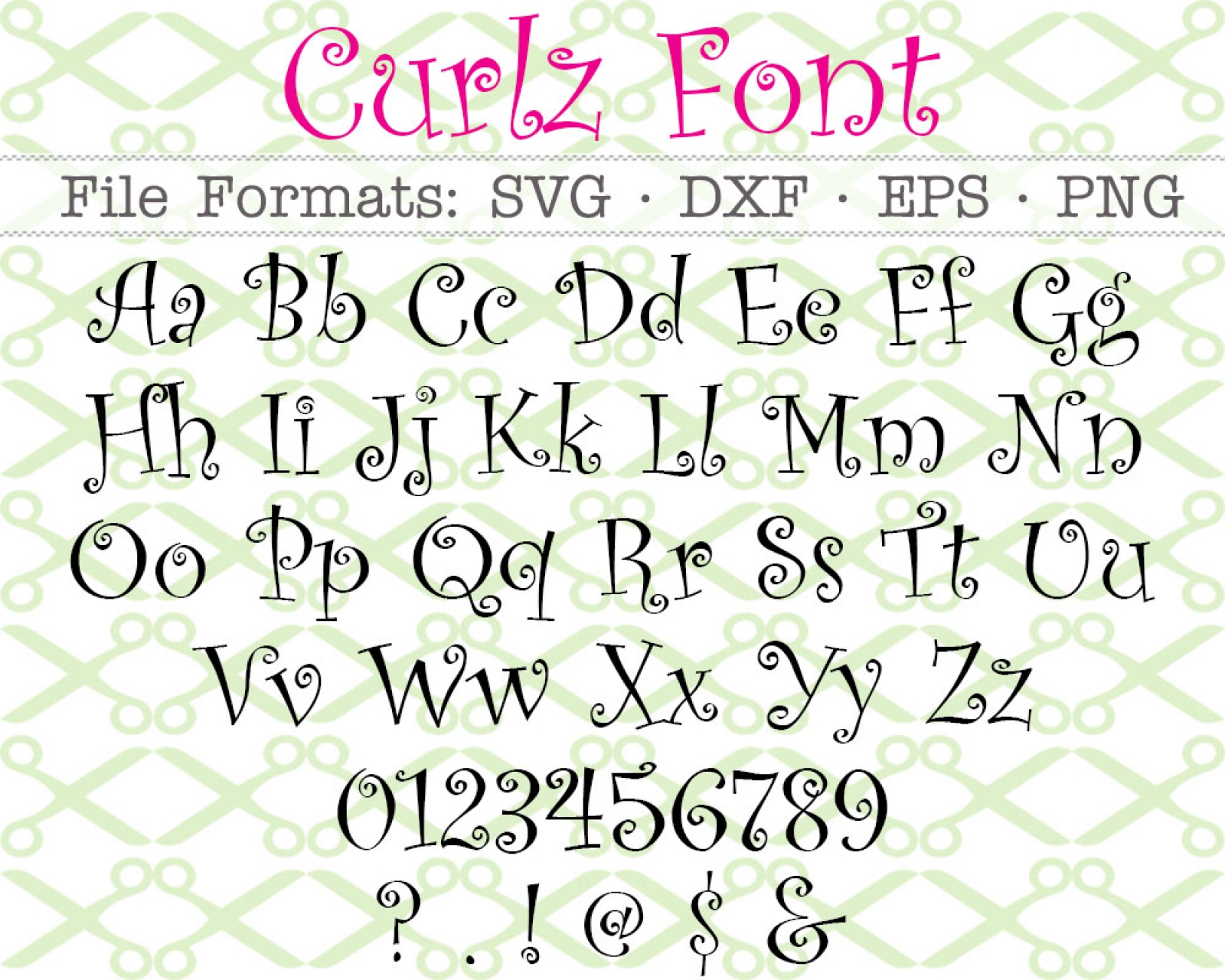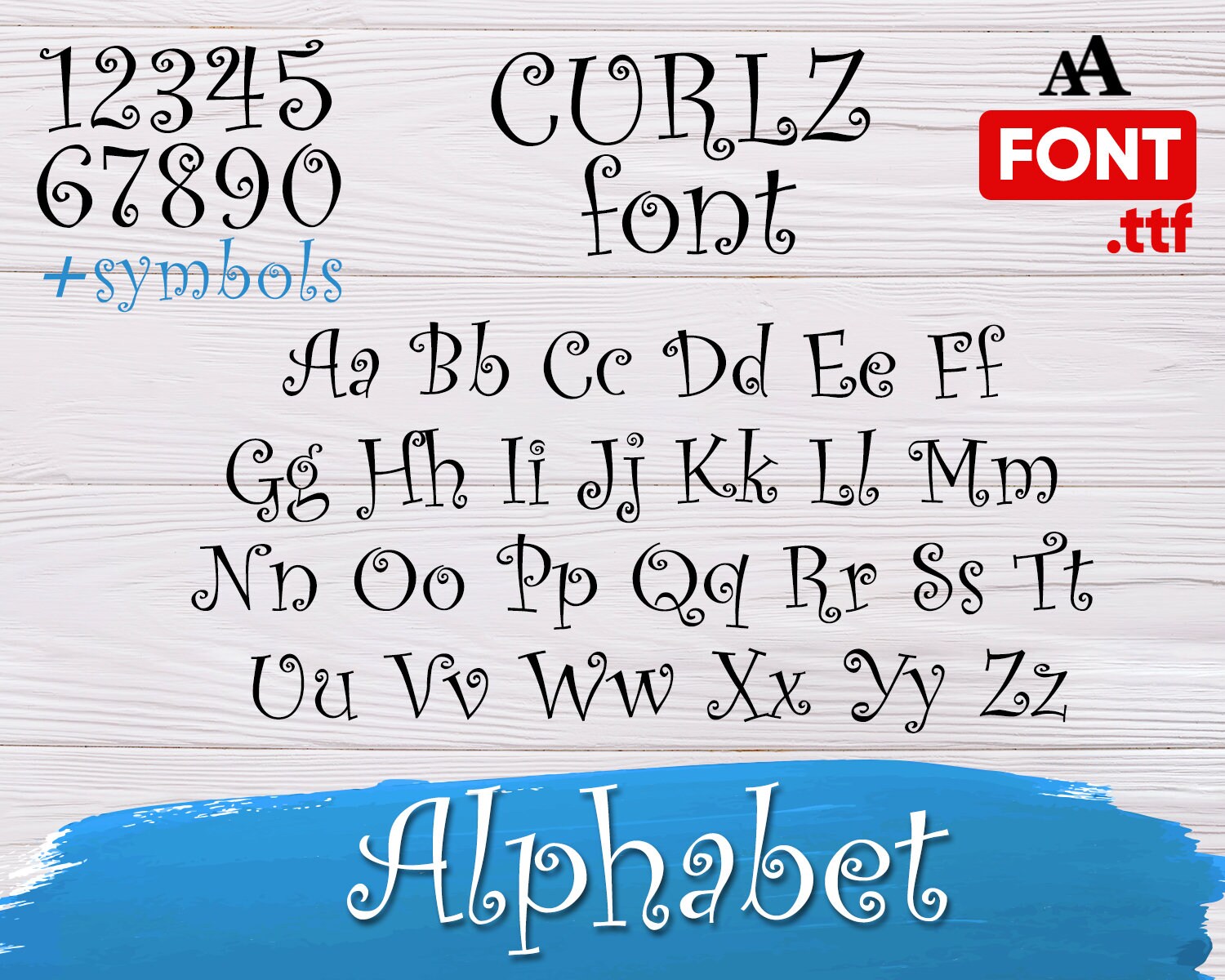
Curlz Font Generator - There is no need to sign up or download any software. Simply visit our website, enter your text, and choose your desired font style. Curlz was designed by steve matteson and carl crossgrove in 1995. Web about curlz font family. In the case of commercial projects, you should buy its paid and full version online. Curlz is appropriate for menus, signage and greetings cards. Curlz is designed to look like bent, twisted metal. Here are some of the. Web curlz font free download click on the below link to download its free version which can use free for personal use. The curlz font is best used for impudent, carefree titles.
Simply visit our website, enter your text, and choose your desired font style. For a unique, festive touch, add a little curlz to posters, flyers, invitations, menus and. Curlz was designed by steve matteson and carl crossgrove in 1995. Web crazy curlz font | dafont.com english français español deutsch italiano português. Web curlz font free download click on the below link to download its free version which can use free for personal use. In the case of commercial projects, you should buy its paid and full version online. Web our font generator is easy to use and completely free. There is no need to sign up or download any software. Curlz is designed to look like bent, twisted metal. Curlz is appropriate for menus, signage and greetings cards.
Curlz is designed to look like bent, twisted metal. Web about curlz font family. Web our font generator is easy to use and completely free. Web curlz font free download click on the below link to download its free version which can use free for personal use. Curlz is appropriate for menus, signage and greetings cards. Curlz was designed by steve matteson and carl crossgrove in 1995. The curlz font is best used for impudent, carefree titles. Here are some of the. For a unique, festive touch, add a little curlz to posters, flyers, invitations, menus and. Simply visit our website, enter your text, and choose your desired font style.
Web crazy curlz font | dafont.com english français español deutsch italiano português. Curlz was designed by steve matteson and carl crossgrove in 1995. Curlz is designed to look like bent, twisted metal. For a unique, festive touch, add a little curlz to posters, flyers, invitations, menus and. Web about curlz font family.
Web crazy curlz font | dafont.com english français español deutsch italiano português. Curlz was designed by steve matteson and carl crossgrove in 1995. Web about curlz font family. Simply visit our website, enter your text, and choose your desired font style. Curlz is appropriate for menus, signage and greetings cards.
Here are some of the. Web crazy curlz font | dafont.com english français español deutsch italiano português. The curlz font is best used for impudent, carefree titles. Web curlz font free download click on the below link to download its free version which can use free for personal use. Simply visit our website, enter your text, and choose your desired.
The curlz font is best used for impudent, carefree titles. For a unique, festive touch, add a little curlz to posters, flyers, invitations, menus and. Here are some of the. Web our font generator is easy to use and completely free. Curlz is designed to look like bent, twisted metal.
There is no need to sign up or download any software. Web curlz font free download click on the below link to download its free version which can use free for personal use. Here are some of the. For a unique, festive touch, add a little curlz to posters, flyers, invitations, menus and. Web about curlz font family.
Web our font generator is easy to use and completely free. Curlz was designed by steve matteson and carl crossgrove in 1995. Curlz is appropriate for menus, signage and greetings cards. Here are some of the. For a unique, festive touch, add a little curlz to posters, flyers, invitations, menus and.
Web our font generator is easy to use and completely free. Curlz was designed by steve matteson and carl crossgrove in 1995. For a unique, festive touch, add a little curlz to posters, flyers, invitations, menus and. The curlz font is best used for impudent, carefree titles. Web crazy curlz font | dafont.com english français español deutsch italiano português.
Curlz is designed to look like bent, twisted metal. Curlz was designed by steve matteson and carl crossgrove in 1995. Web our font generator is easy to use and completely free. Simply visit our website, enter your text, and choose your desired font style. For a unique, festive touch, add a little curlz to posters, flyers, invitations, menus and.
Web curlz font free download click on the below link to download its free version which can use free for personal use. The curlz font is best used for impudent, carefree titles. For a unique, festive touch, add a little curlz to posters, flyers, invitations, menus and. Web about curlz font family. Here are some of the.
The curlz font is best used for impudent, carefree titles. Web about curlz font family. Simply visit our website, enter your text, and choose your desired font style. Here are some of the.
Curlz was designed by steve matteson and carl crossgrove in 1995. In the case of commercial projects, you should buy its paid and full version online.